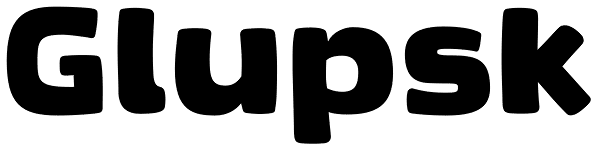
Glupsk
Do you remember that kid from Lord of the Flies? Why do I even remember that kid, I’m too young for that. However, his name was Piggy, and I wanted to make a typeface that resembled him. So this is my tribute to Piggy who got killed by that falling...